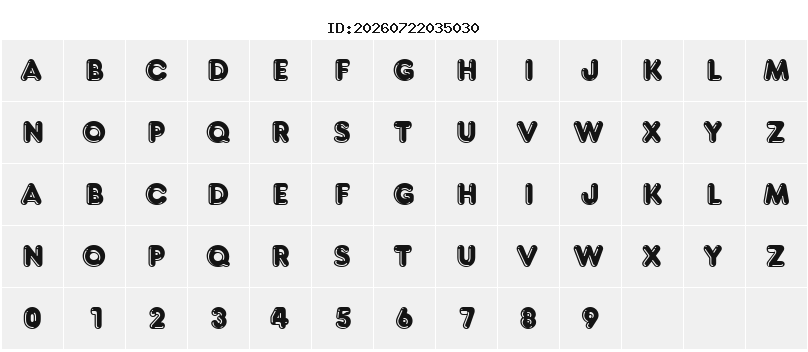
FFX Balloon Engraved.ttf is a modern, elegant sans-serif font designed for ultimate readability and visual harmony. Perfect for branding, headlines, web design, and print materials.